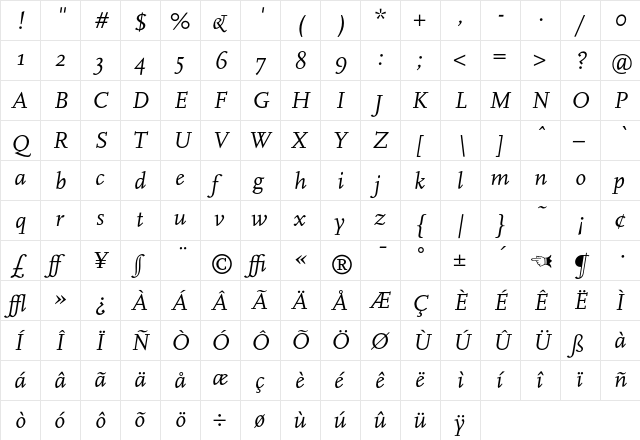
FFScala-Italic Regular Font Preview
FFScala-Italic Regular
FFScala-Italic Regular Font Details
Design Context for FFScala-Italic Typeface
FFScala-Italic is a composed and adaptable typeface that performs quietly and consistently across a wide range of design contexts. The slanted form adds forward momentum and visual energy.
Pro Tip: Use FFScala-Italic for emphasis, pull quotes, and subheadings where its slanted energy can add rhythm to the layout.